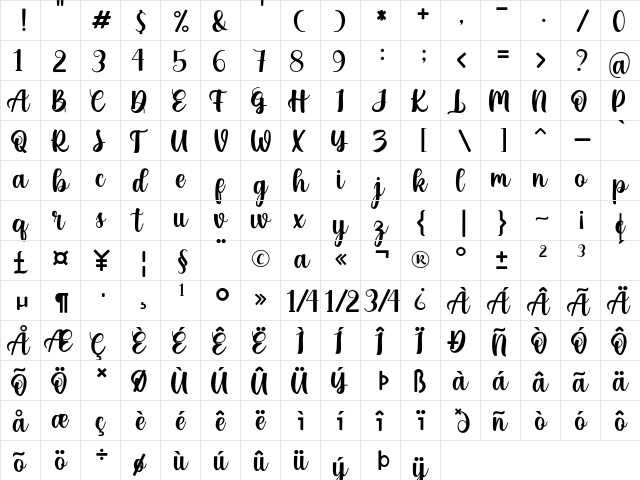
bluesfather Regular
Design Context for bluesfather Typeface
bluesfather is a composed and adaptable typeface that performs quietly and consistently across a wide range of design contexts.